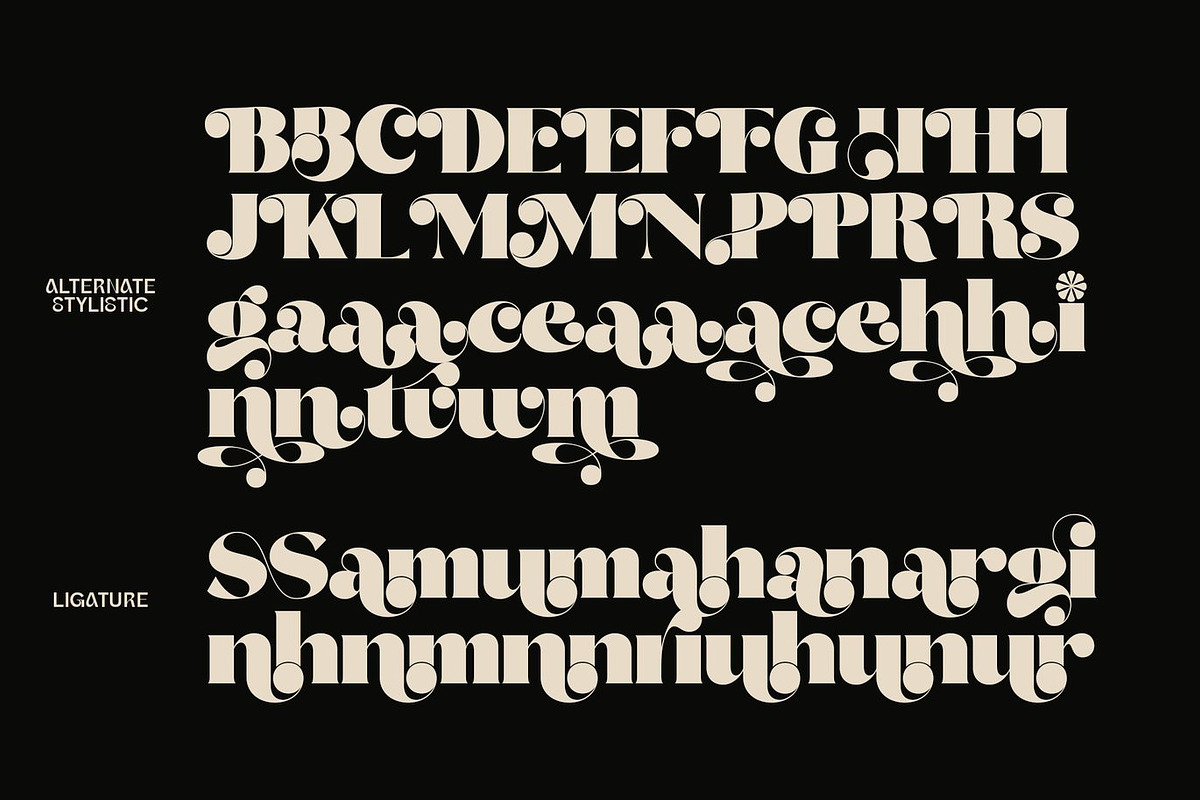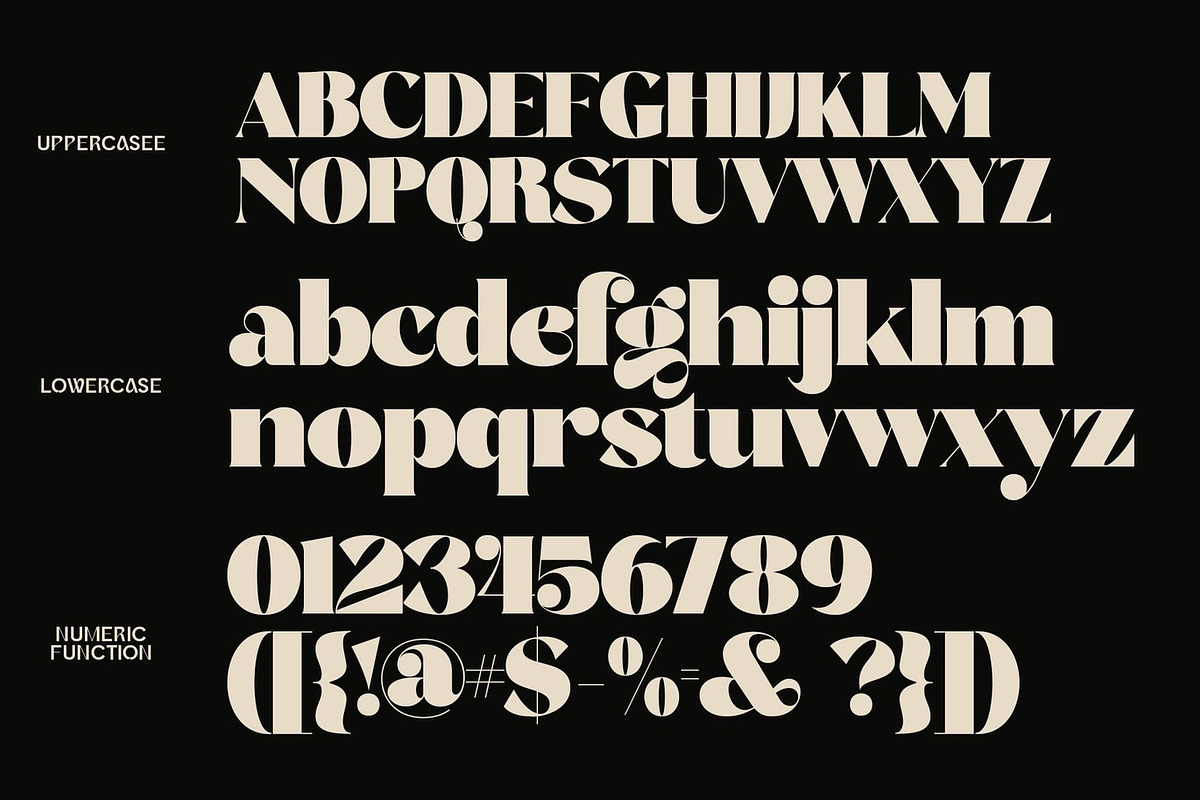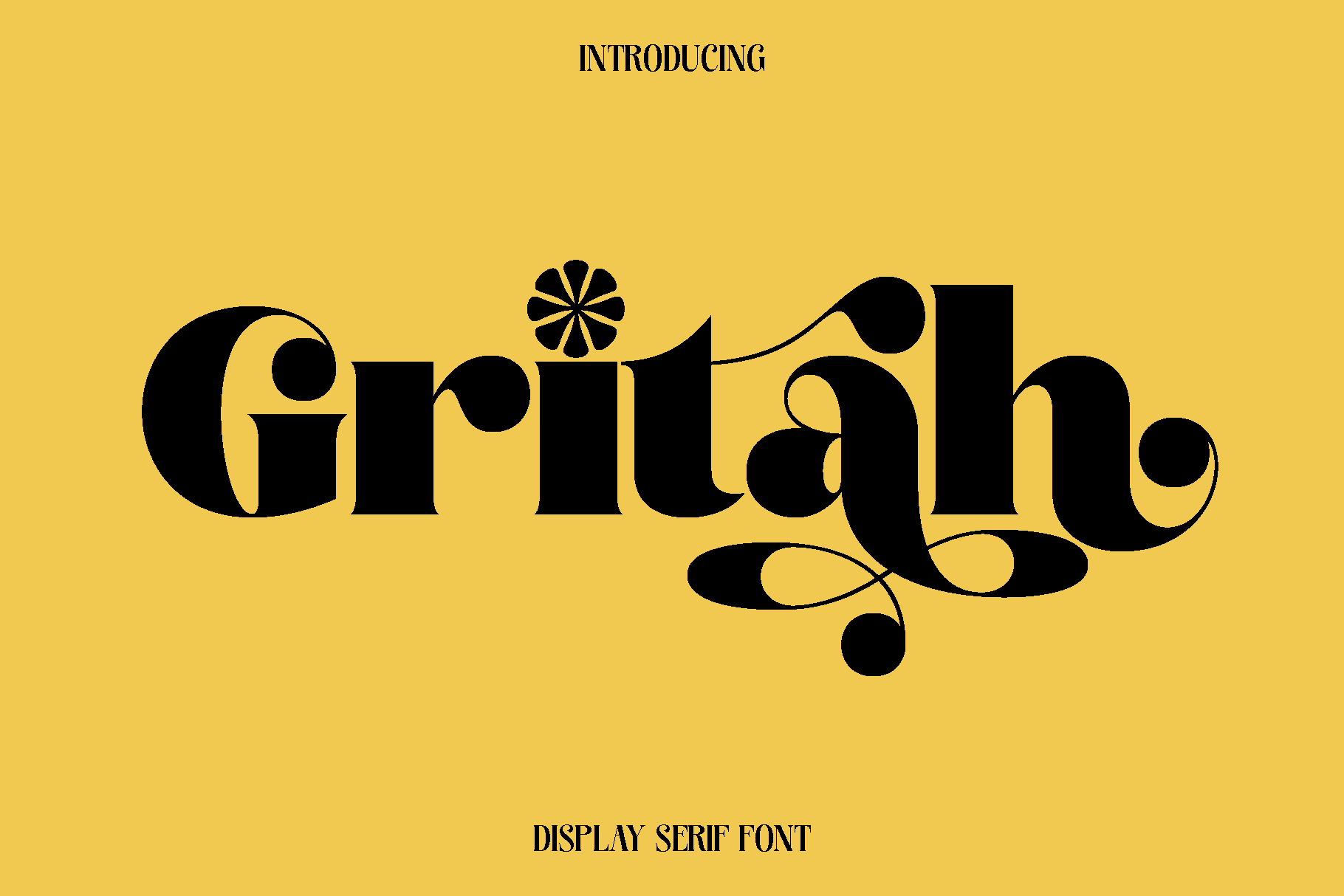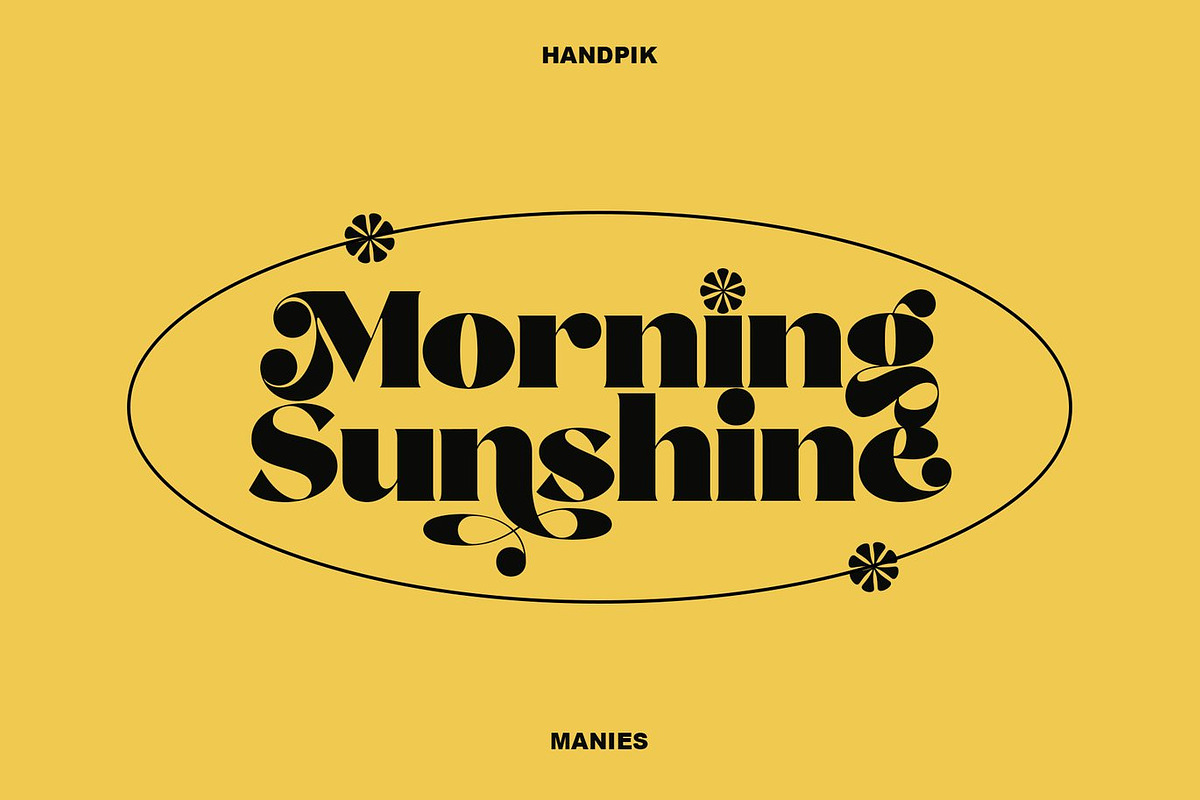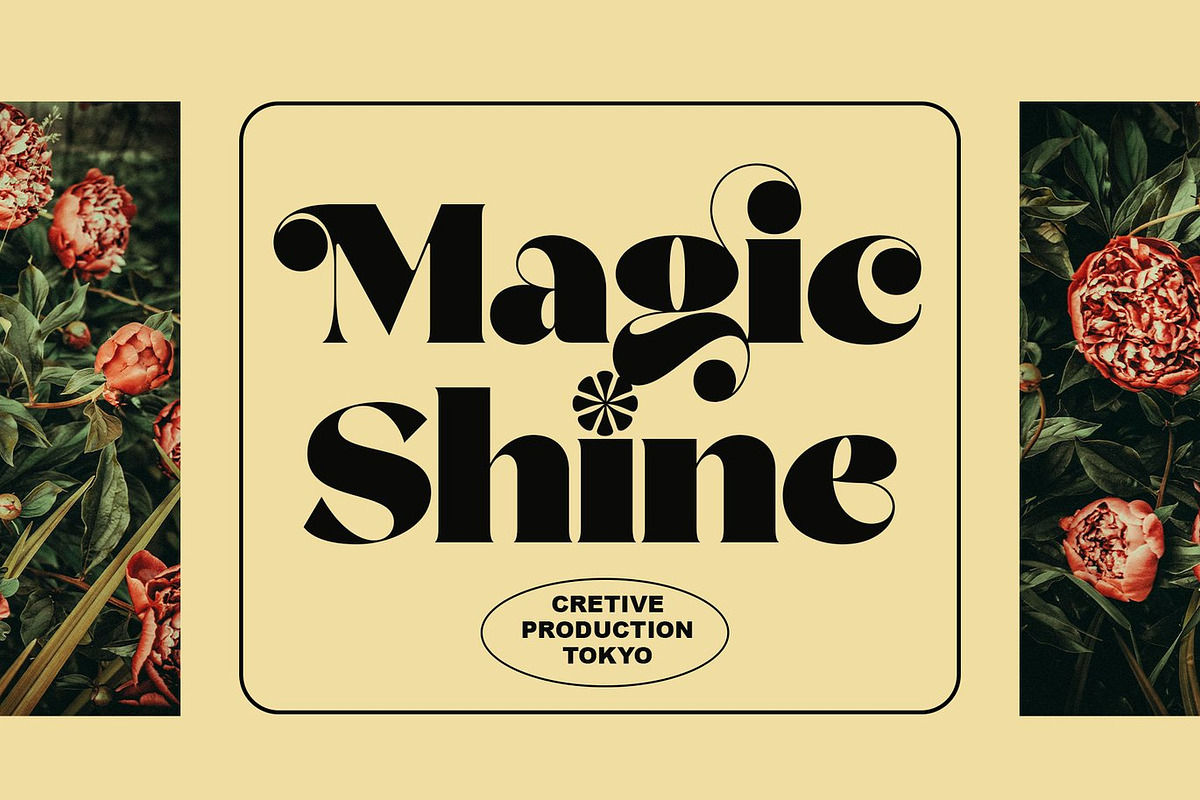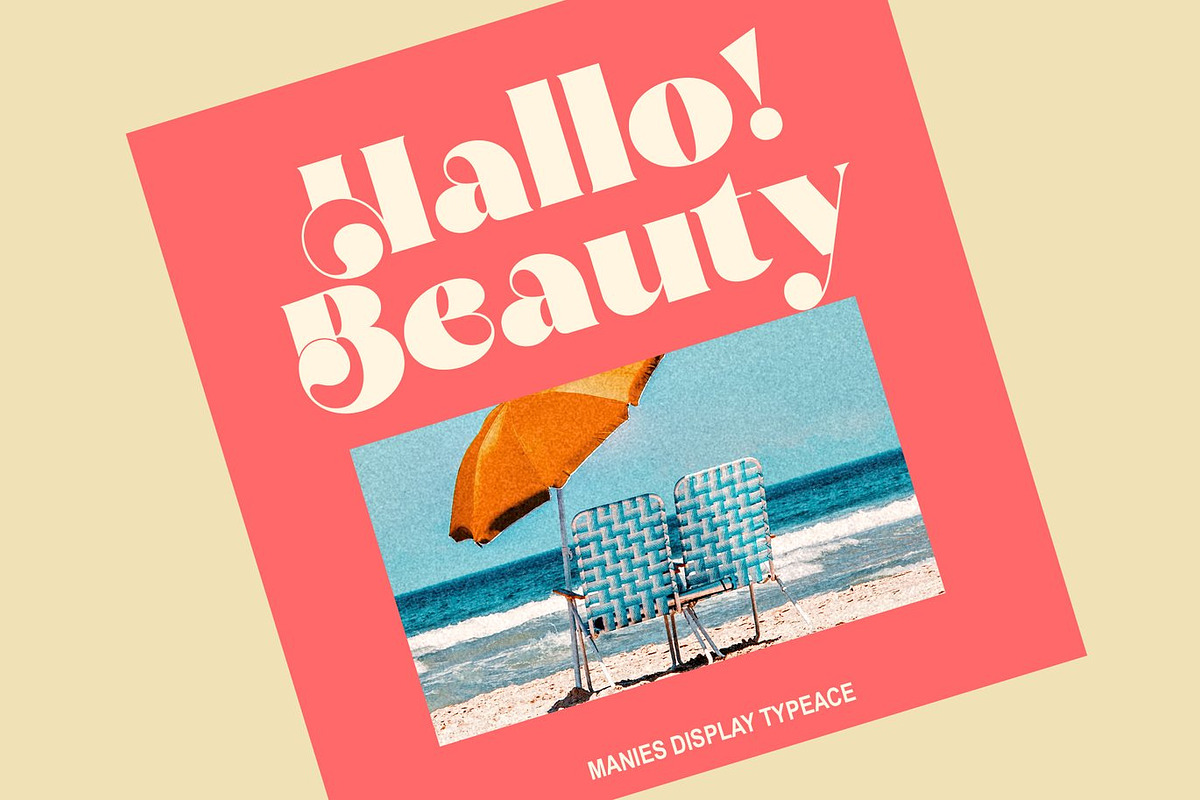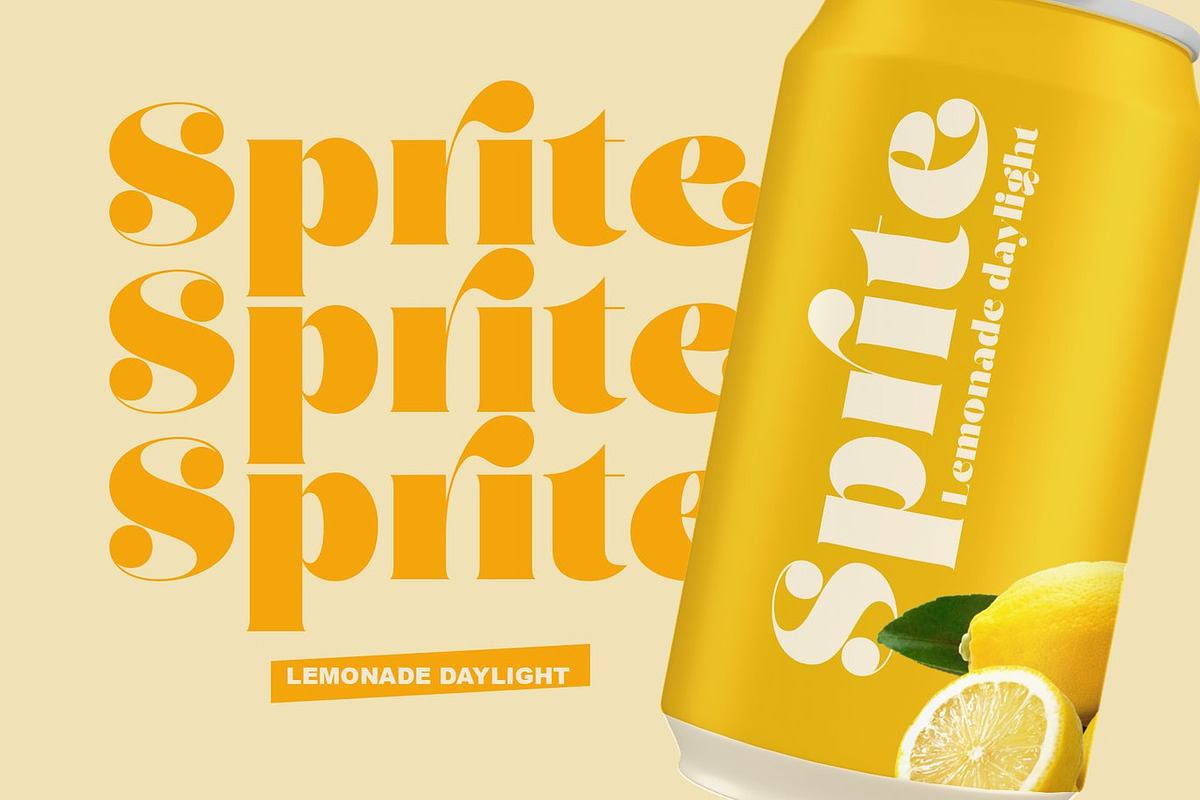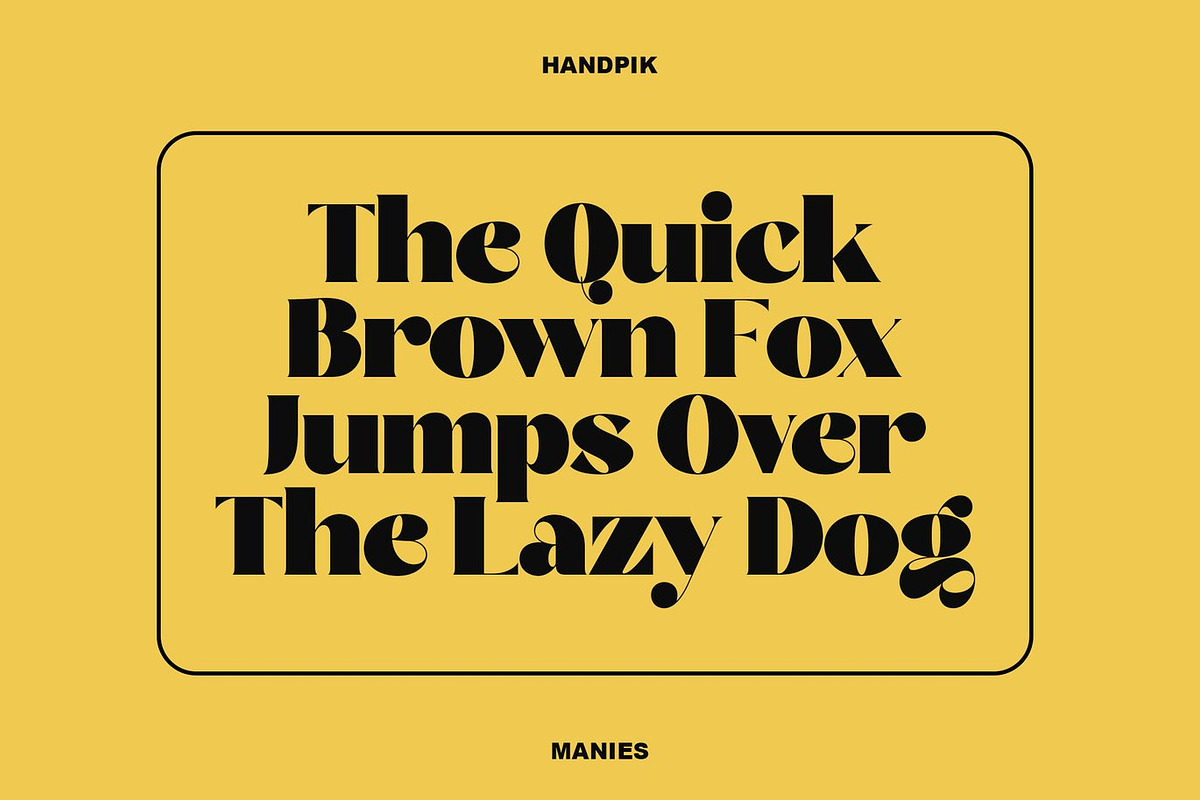
Gritah - Display Serif Font
Gritah is a modern typeface designed to bring clarity, character, and versatility to a wide range of creative projects. Built with a balanced structure and clean letterforms, Gritah offers a contemporary look that feels both professional and approachable. Its design focuses on readability while maintaining a subtle personality, making it a dependable choice for designers who need a font that performs beautifully across different styles and mediums.
The typeface shines in editorial layouts, books, magazines, branding, and digital content where consistency and visual harmony are essential. Gritah adapts effortlessly to logos, photography overlays, quotes, blog headers, posters, and advertising campaigns, giving each design a polished and cohesive appearance. Its functional design ensures that whether used for headlines or body text, the result feels refined and well crafted.
Gritah delivers a calm and confident typographic voice. It supports creative freedom while maintaining strong legibility, making it suitable for both minimal and expressive compositions. Designers looking for a reliable, modern font that enhances storytelling and visual communication will find Gritah a valuable addition to their toolkit.
Gritah Font Features:
• Uppercase and lowercase characters
• Numerals and functional glyphs
• Multilingual support
• Clean and readable letterforms